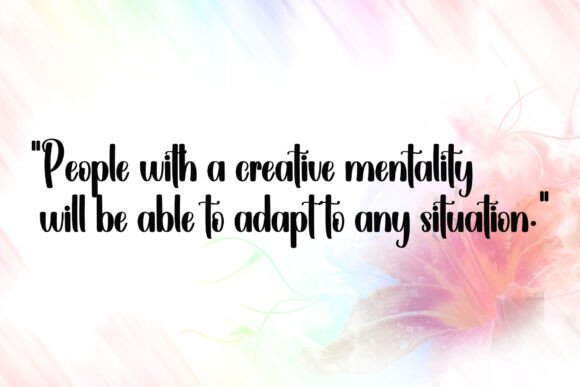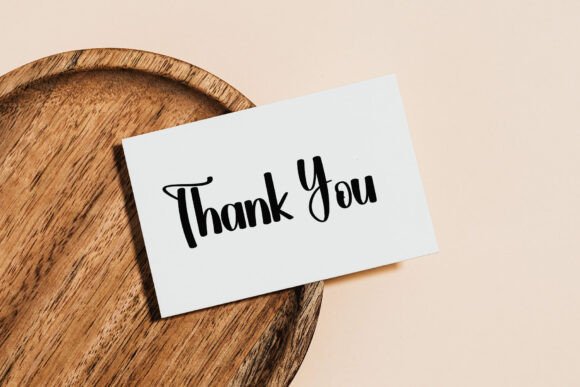
The Elegance of Alcohol Font: A Designer’s New Best Friend
I still remember the design project that led me to discover the Alcohol font. I was working on a luxury brand’s brochure, and my client requested a font that exuded elegance and sophistication. I scoured the internet, tried out countless fonts, but nothing seemed to fit the bill. That was until I stumbled upon Alcohol font. Its modern, handwritten style with a classic calligraphy twist was exactly what I needed. In this article, I’ll share my experience with Alcohol font, its features, and how to make the most of it in your design projects.
An Honest Review of Alcohol Font
• ✨ Timeless elegance: Alcohol font has a classic, sophisticated feel that adds a touch of luxury to any design project.
• ✅ Versatility: Its modern, handwritten style makes it suitable for a wide range of designs, from wedding invitations to business branding.
• 💫 Impeccable form: The font’s attention to detail and precise lettering make it a joy to work with.
While Alcohol font is an excellent choice, it’s not without its quirks. For instance, ⚠️ some characters may require manual kerning to achieve optimal spacing. Additionally, 🤔 the font’s stylistic alternates may not work seamlessly with all design software.
The Backstory of Alcohol Font
Alcohol font was designed by a team of typographers who aimed to create a font that combines modernity with classic elegance. Inspired by timeless calligraphy, they crafted a font that’s both sophisticated and approachable. The result is a font that’s perfect for designers who want to add a touch of luxury to their projects.
What is Alcohol font? Alcohol font is a modern, handwritten font with a classic calligraphy twist.
Is Alcohol font suitable for body text? While Alcohol font is elegant, it’s best suited for headlines and titles. For body text, consider using a more legible font.
Does Alcohol font support OpenType features? Yes, Alcohol font supports OpenType features, including stylistic alternates and glyphs.